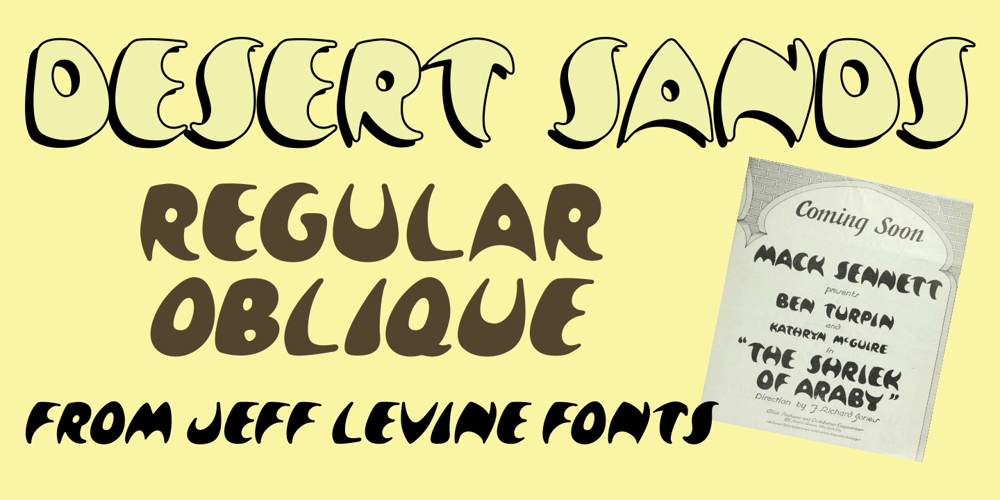
Desert Sands JNL Font Family was designed by Jeff Levine and published by Jeff Levine. Desert Sands JNL contains 2 styles and family package options. The February 19, 1923 issue of The Film Daily contained an ad for Mack Sennett’s new Ben Turpin comedy entitled “The Shriek of Araby”. No doubt this was a spoof of the popular Rudolph Valentino film “The Sheik”. The ad tries to emulate Mideastern or Arabic typography via a standard Western alphabet. It somewhat captures the flavor, but its free-form hand lettering comes off as more of a novelty-type style. This is now available digitally as Desert Sands JNL in both regular and oblique versions.